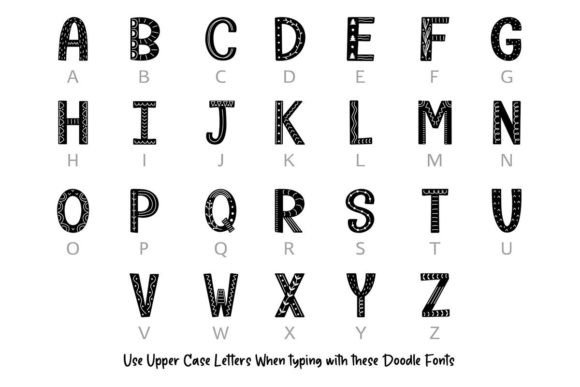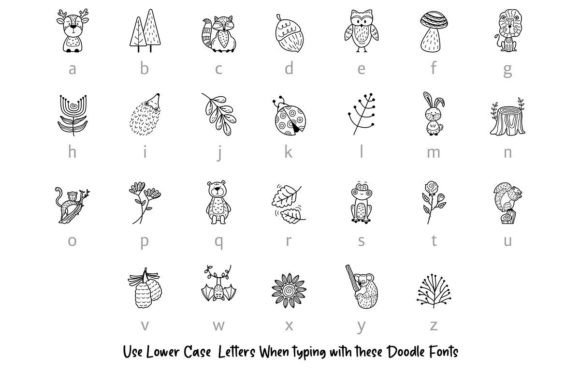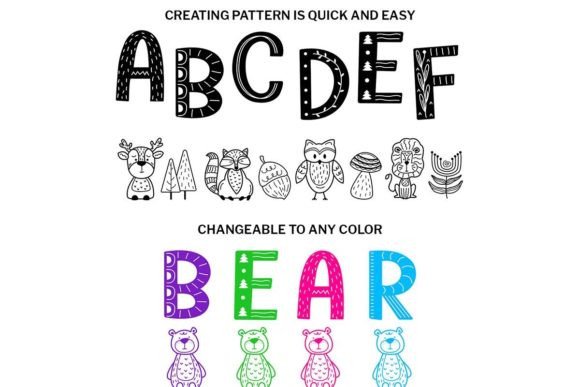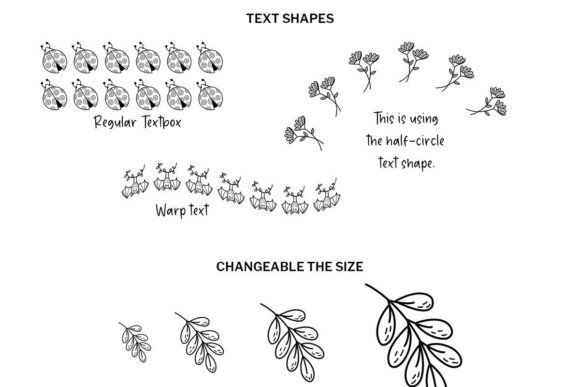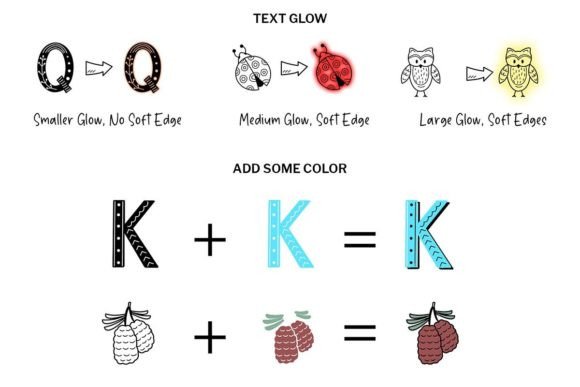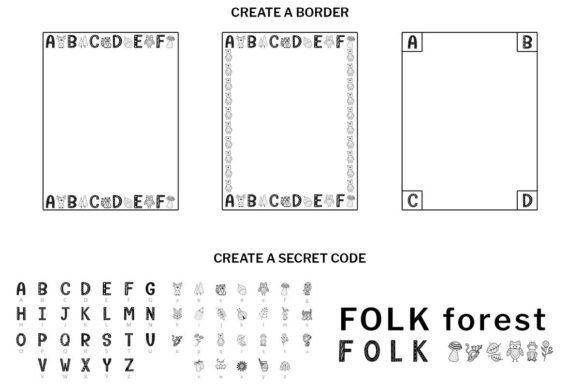
The Designer’s Delight: Getting to Know Folk Forest Font
I’ll never forget the time I was working on a whimsical craft project for a client who wanted a custom sign with a playful, outdoorsy vibe. As I scrolled through my font library, I couldn’t find the perfect match – that was until I stumbled upon Folk Forest. It’s a fun and lovely dingbats font that’s quickly become a staple in my design toolkit. In this article, I’ll share my experience with Folk Forest, its features, and how to make the most of it in your projects.
An Honest Review of Folk Forest
- ✨ Unique and quirky design that’s perfect for creative projects
- ✅ Extensive character set, including glyphs and stylistic alternates
- 🌿 Wonderful for nature-inspired designs, crafts, and illustrations
- 💻 Works beautifully in various design software, including Canva, Adobe Photoshop, and Illustrator
While Folk Forest is an amazing font, there are a few things to keep in mind:
- ⚠️ Some characters may require manual kerning for optimal results
- 🤔 Limited use in formal or professional designs, as it’s more suited for creative and whimsical projects
The Story Behind Folk Forest
Folk Forest was designed with the intention of capturing the whimsical, outdoorsy feel of traditional folk art. The designer aimed to create a font that’s both fun and versatile, perfect for creative projects like crafts, illustrations, and signs.
Q: What type of projects is Folk Forest best suited for?
A: Folk Forest is perfect for creative projects like crafts, illustrations, signs, and other whimsical designs.